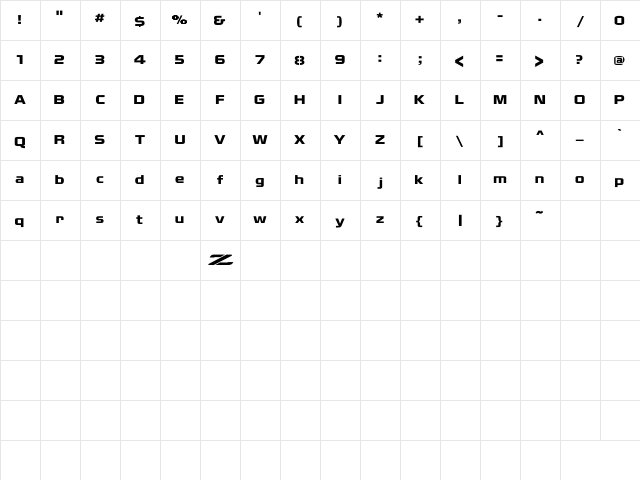
Nissan Decal Regular
Design Context for Nissan Decal Typeface
Nissan Decal offers clean, dependable letterforms without strong stylistic allegiance, making it a practical choice for designers who need flexibility.